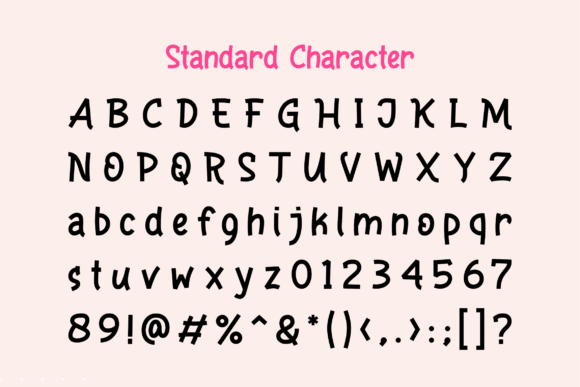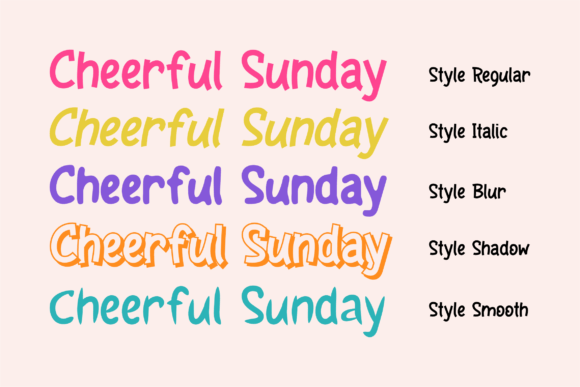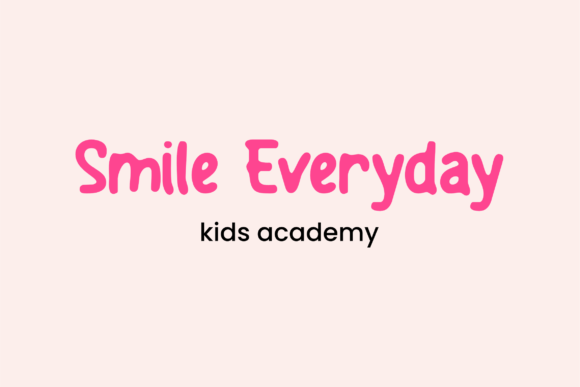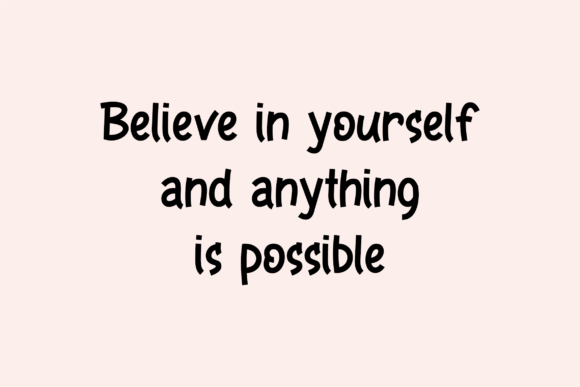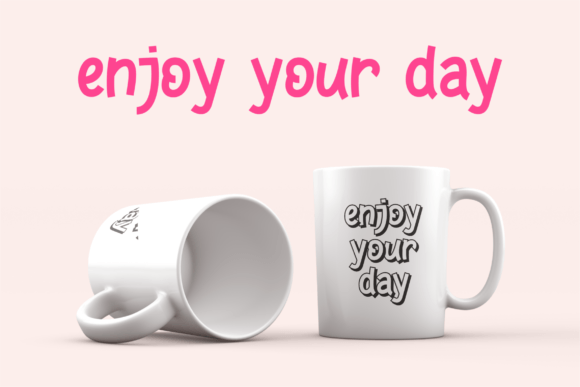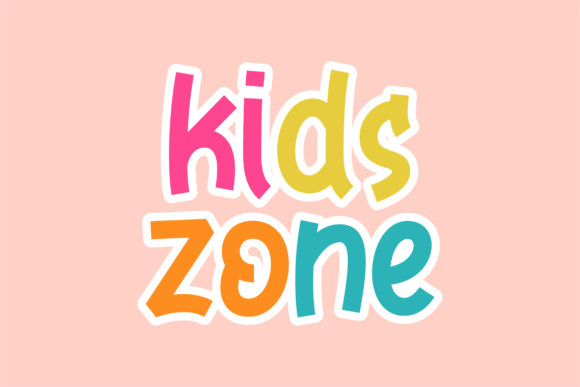
Introducing Cheerful Sunday Font: Add a Touch of Whimsy to Your Designs
Are you tired of using the same old fonts in your design projects? Look no further than Cheerful Sunday Font, a fun and versatile display font that’s sure to add a touch of whimsy to any design. With its five included styles, you can create everything from eye-catching headlines to adorable children’s book covers. In this article, we’ll take a closer look at Cheerful Sunday Font and explore its features, benefits, and uses.
What is Cheerful Sunday Font?
Cheerful Sunday Font is a display font designed to bring a friendly and approachable vibe to your designs. Its casual, handwritten style is perfect for creating a wide range of projects, from branding and marketing materials to children’s book covers and more. The font comes with five different styles, allowing you to experiment with different looks and feels to find the one that works best for your project.
Key Features of Cheerful Sunday Font
- Five included styles: With five different styles to choose from, you can create a unique look for your project that’s tailored to your specific needs.
- Casual, handwritten style: The font’s casual, handwritten style gives off a friendly and approachable vibe, making it perfect for branding and marketing materials.
- Versatile: Cheerful Sunday Font is versatile enough to be used in a wide range of projects, from children’s book covers to eye-catching headlines.
- Easy to read: Despite its playful style, Cheerful Sunday Font is easy to read, making it perfect for use in both digital and print materials.
Benefits of Using Cheerful Sunday Font
So why should you choose Cheerful Sunday Font for your next design project? Here are just a few benefits of using this fun and versatile font:
- Adds a touch of whimsy: Cheerful Sunday Font is sure to add a touch of whimsy to any design project, making it perfect for designers who want to create something unique and eye-catching.
- Perfect for branding and marketing materials: The font’s friendly and approachable vibe makes it perfect for use in branding and marketing materials, such as logos, brochures, and social media graphics.
- Great for children’s projects: The font’s playful style makes it perfect for use in children’s book covers, educational materials, and other projects geared towards kids.
Uses for Cheerful Sunday Font
So what can you use Cheerful Sunday Font for? The possibilities are endless! Here are a few ideas to get you started:
- Children’s book covers: The font’s playful style makes it perfect for use in children’s book covers, adding a touch of whimsy and fun to your design.
- Branding and marketing materials: Use Cheerful Sunday Font to create eye-catching logos, brochures, and social media graphics that showcase your brand’s friendly and approachable side.
- Headlines and titles: The font’s bold and playful style makes it perfect for use in headlines and titles, adding a touch of personality to your design.
- Invitations and greeting cards: Use Cheerful Sunday Font to create fun and playful invitations and greeting cards that are sure to delight the recipient.
In conclusion, Cheerful Sunday Font is a fun and versatile display font that’s perfect for designers who want to add a touch of whimsy to their design projects. With its five included styles, casual handwritten style, and easy-to-read design, it’s perfect for use in a wide range of projects, from branding and marketing materials to children’s book covers and more. So why not give Cheerful Sunday Font a try and see how it can add a touch of personality to your next design project?